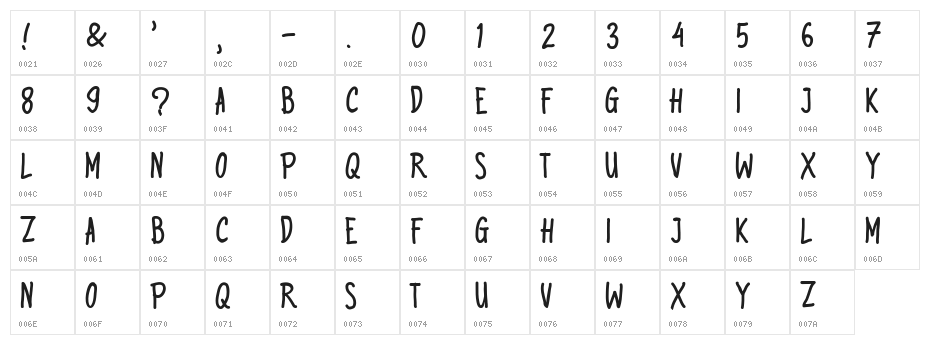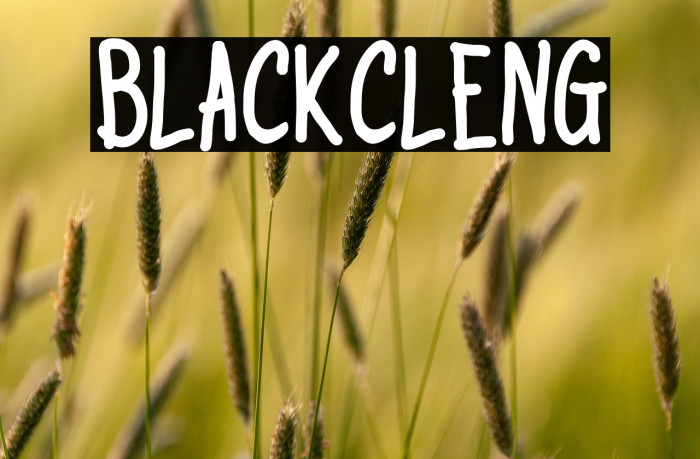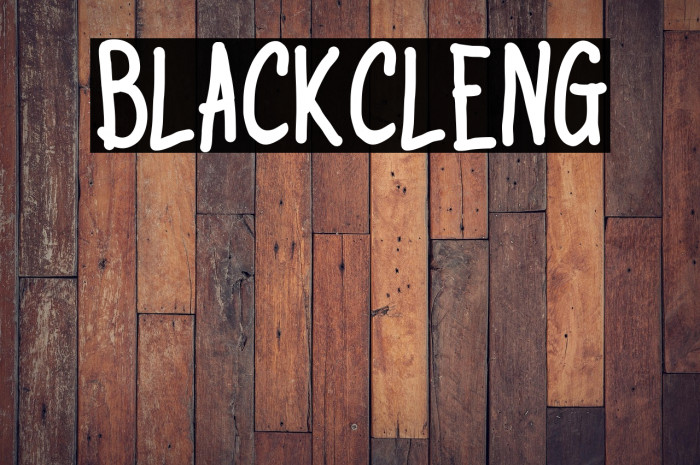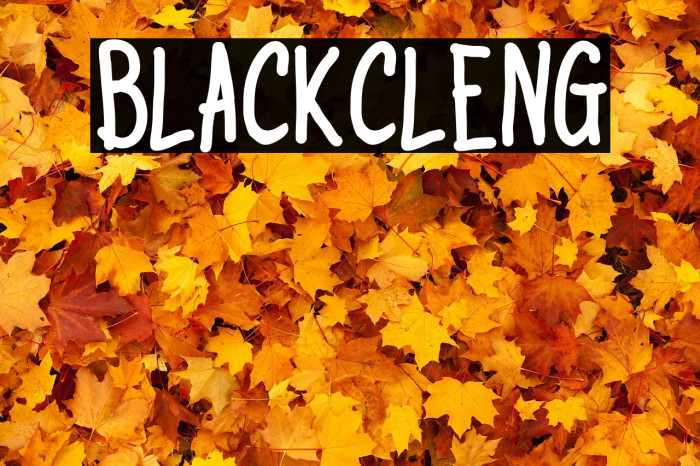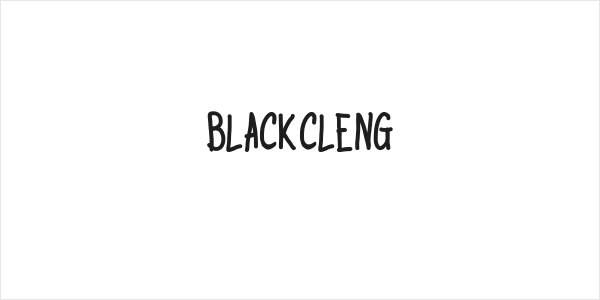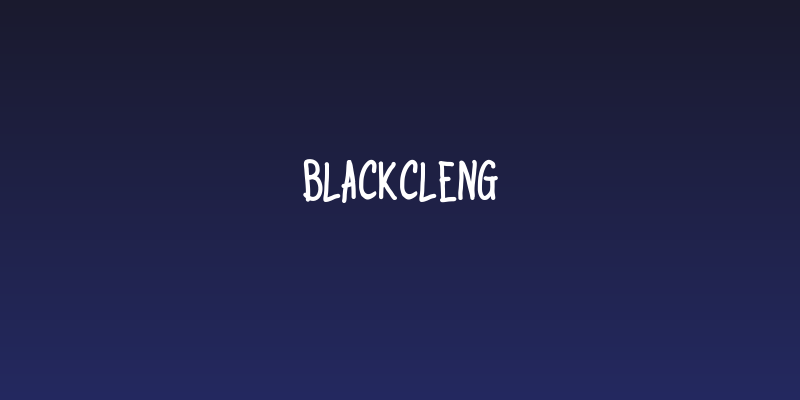
BlackCleng Font
BlackCleng Description
This font features a playful and casual handwritten style, characterized by its bold and slightly irregular strokes. The letters have a lively and energetic appearance, with a consistent thickness that gives them a strong presence on the page. The uppercase and lowercase characters maintain a uniform height, contributing to a cohesive look. The numerals and special characters are crafted with the same playful spirit, making them suitable for informal and creative projects. The font's overall style is approachable and friendly, making it ideal for designs that aim to convey warmth and personality.
| Use Case | Headlines, Informal Text, Creative Projects |
| Proposed Projects | Ideal for greeting cards, children's books, playful branding, and social media graphics. |